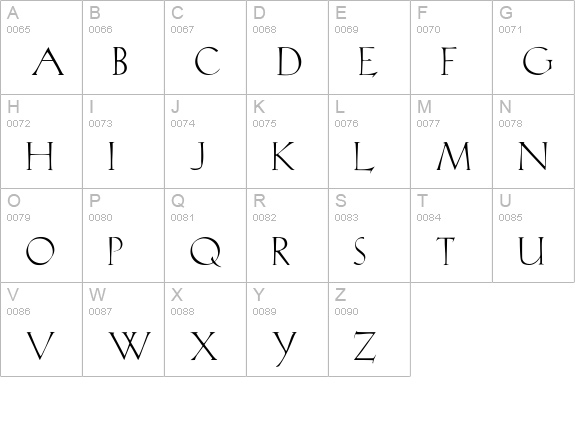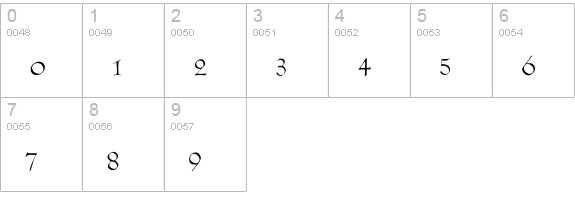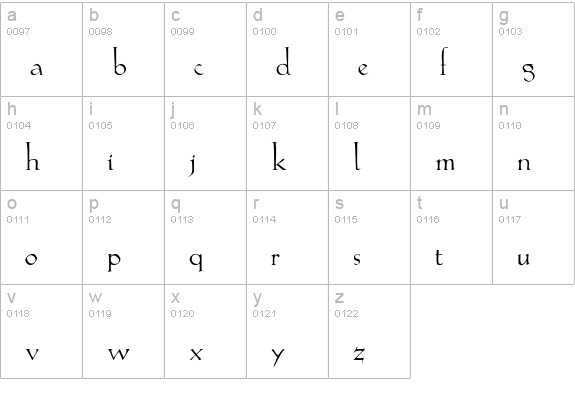
Lilith-Light is a refined, elegant variant in the Lilith typeface family \xE2\x80\x94 well suited to elegant body text, refined sub-headings, and luxury branding.
Introducing Lilith-Light, a modern and elegant font that exudes sophistication and charm. With its sleek lines and delicate curves, this font is perfect for adding a touch of class to any project. The graceful strokes of Lilith-Light are sure to captivate your audience and leave a lasting impression. The best part? Lilith-Light is completely free to download at FontsMarket.com! That's right, you can easily access this beautiful font at no cost. Whether you're designing invitations, creating a logo, or working on a branding project, Lilith-Light will elevate your work to the next level. Don't miss out on this opportunity to enhance your designs with the timeless beauty of Lilith-Light. Download it today and see the magic it brings to your creations!